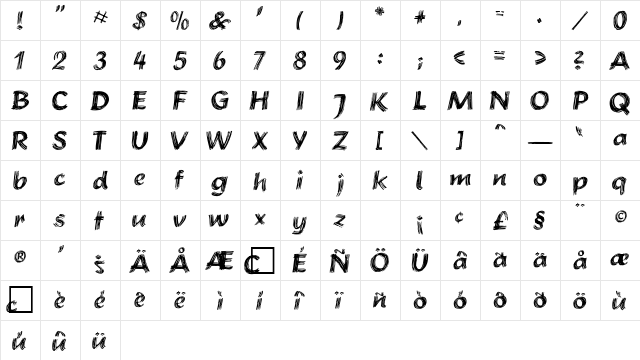
Brushstroke Plain Plain
Design Context for Brushstroke Plain Typeface
Brushstroke Plain brings a calligraphic fluidity to the page — its connecting strokes and expressive curves give it an unmistakably human quality.
Font Pairing: Combine Brushstroke Plain with a simple geometric sans for maximum contrast — the tension between flowing curves and clean structure is a classic typographic pairing.
Pro Tip: Use Brushstroke Plain for short runs of text — names, titles, or taglines. Extended body copy in script faces tires the eye quickly.